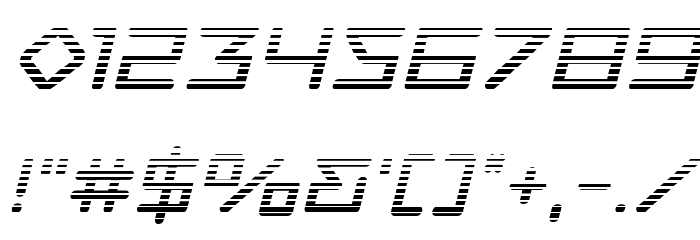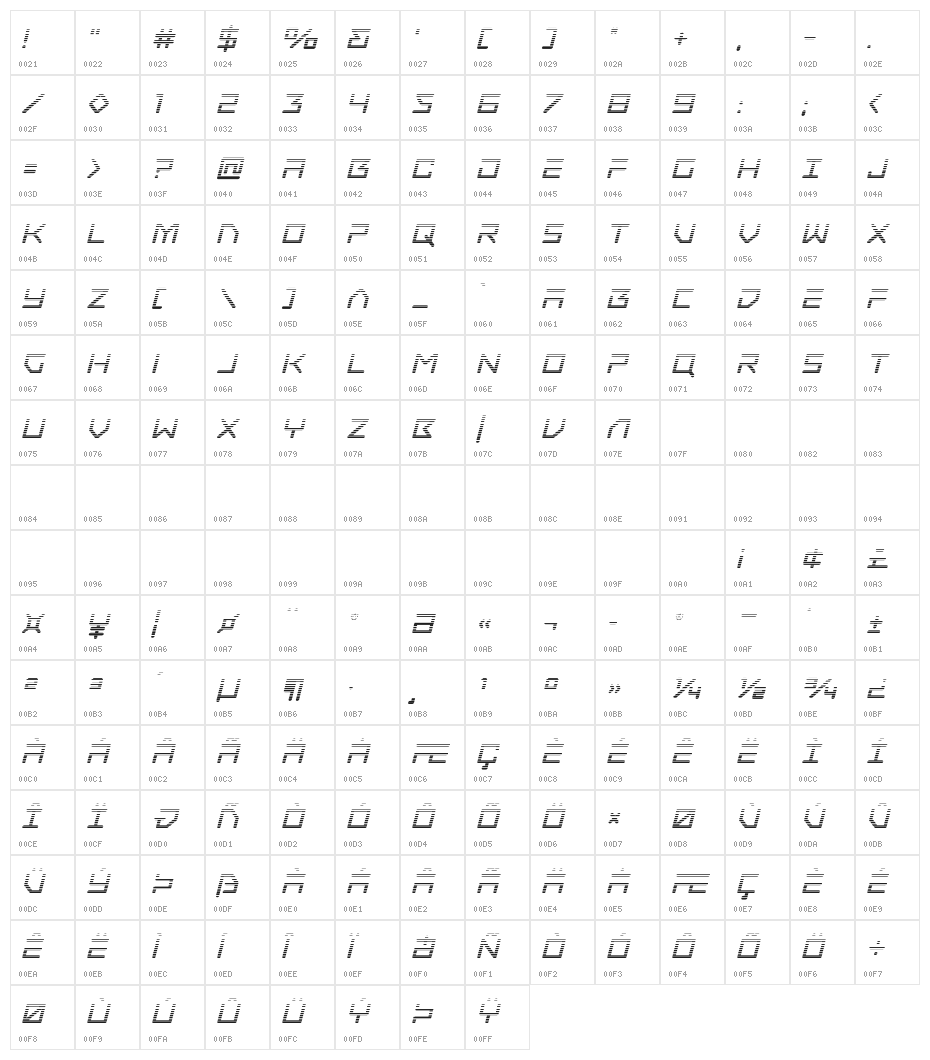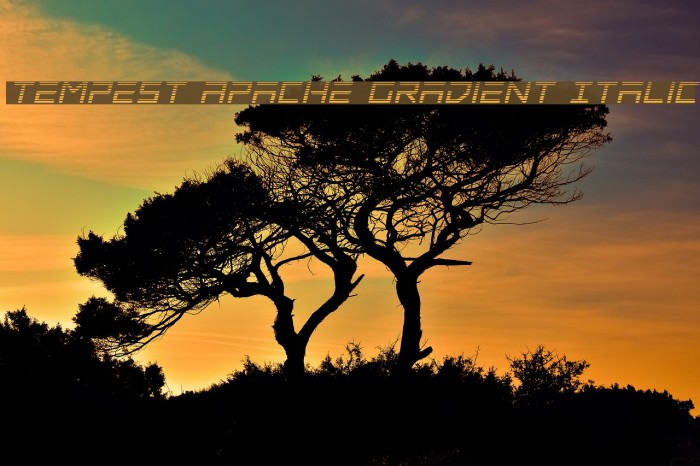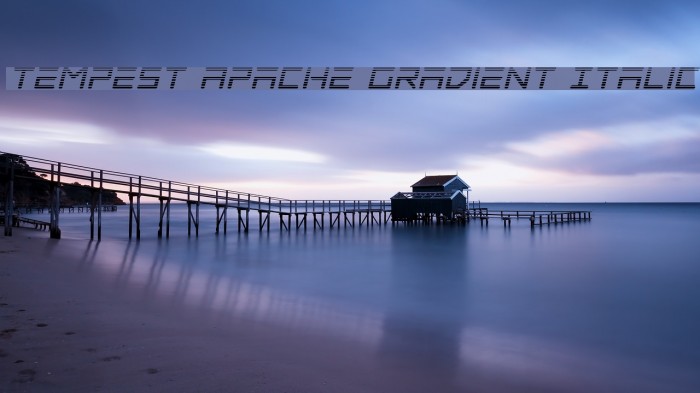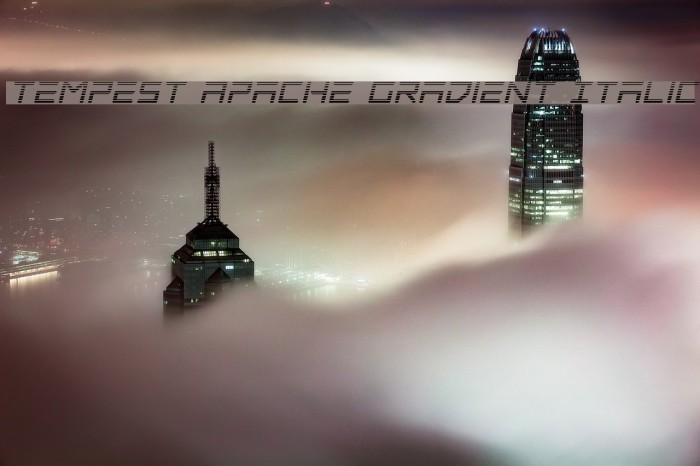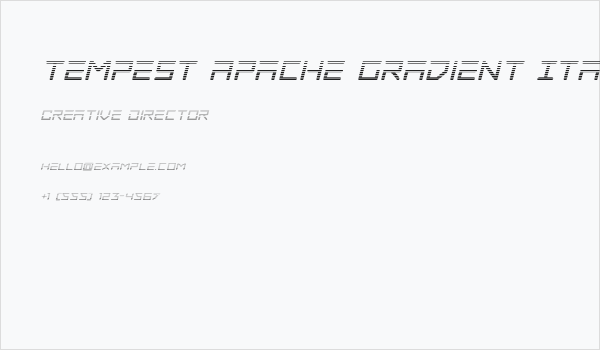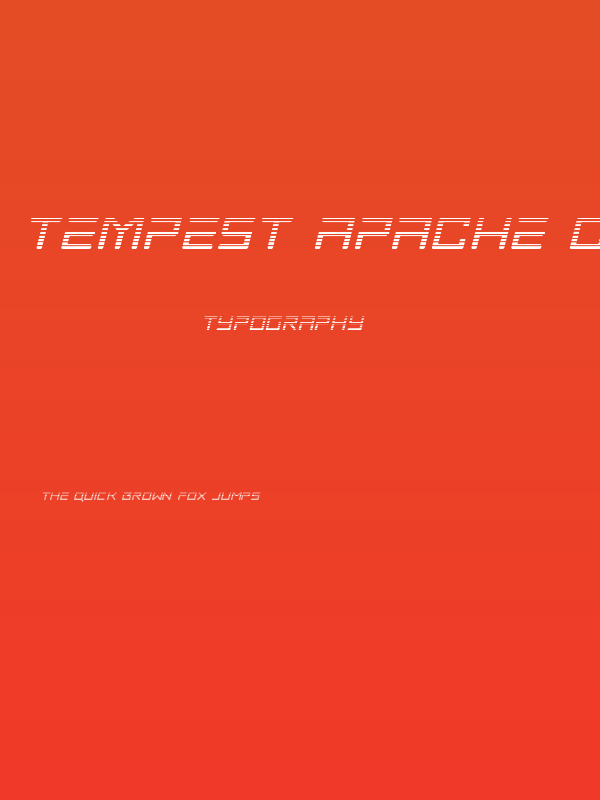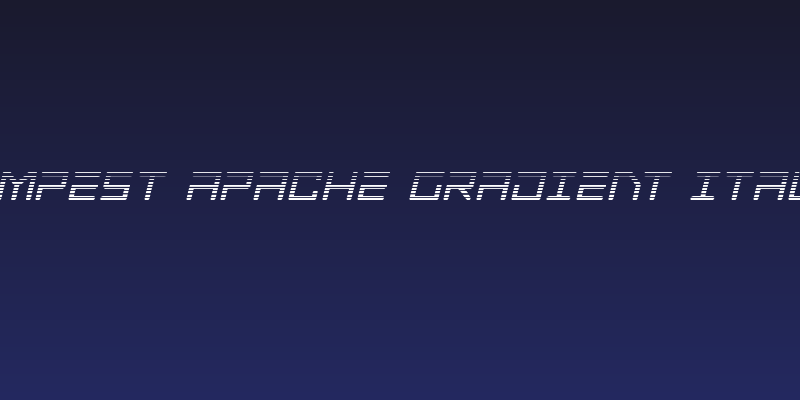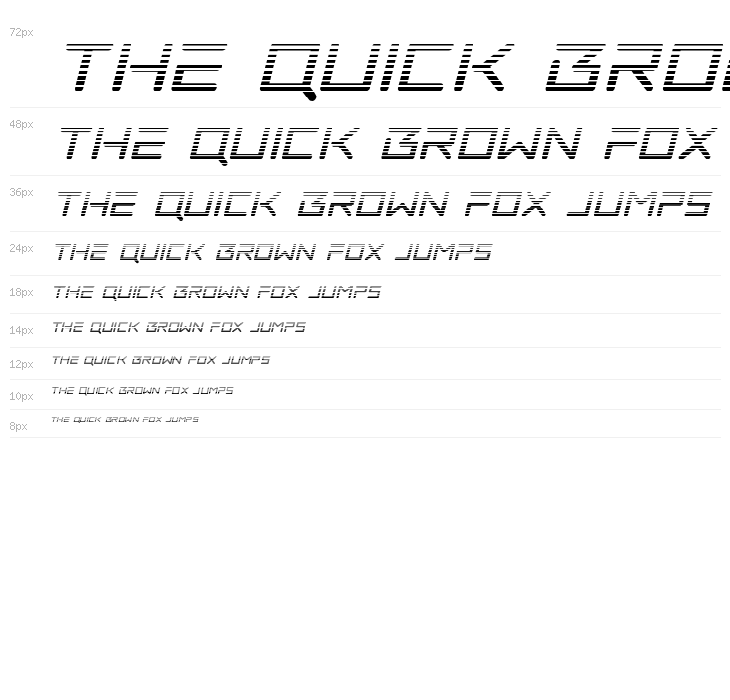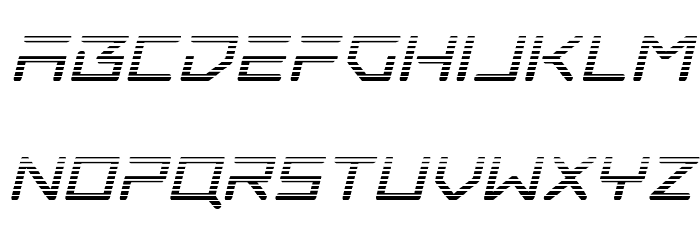
Tempest Apache Gradient Italic Font
Tempest Apache Gradient Italic Description
This font features a futuristic and dynamic design with a distinct gradient effect that gives each character a sense of motion and depth. The italicized style adds a sleek and modern touch, making it stand out in any design project. The characters are composed of horizontal lines that create a striped pattern, enhancing the visual interest and uniqueness. This font is ideal for projects that require a bold and innovative look, such as technology-related branding, sports team logos, or sci-fi themed designs. The uppercase and lowercase letters maintain a consistent style, while the numerals and special characters complement the overall aesthetic.
| Use Case | Logos, Headlines |
| Proposed Projects | Ideal for technology branding, sports logos, sci-fi themes, and innovative design projects. |